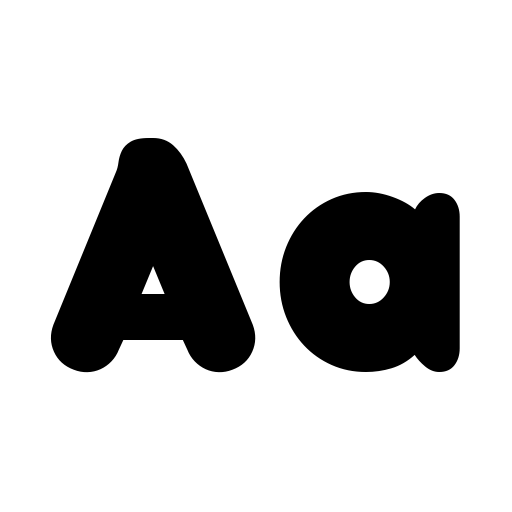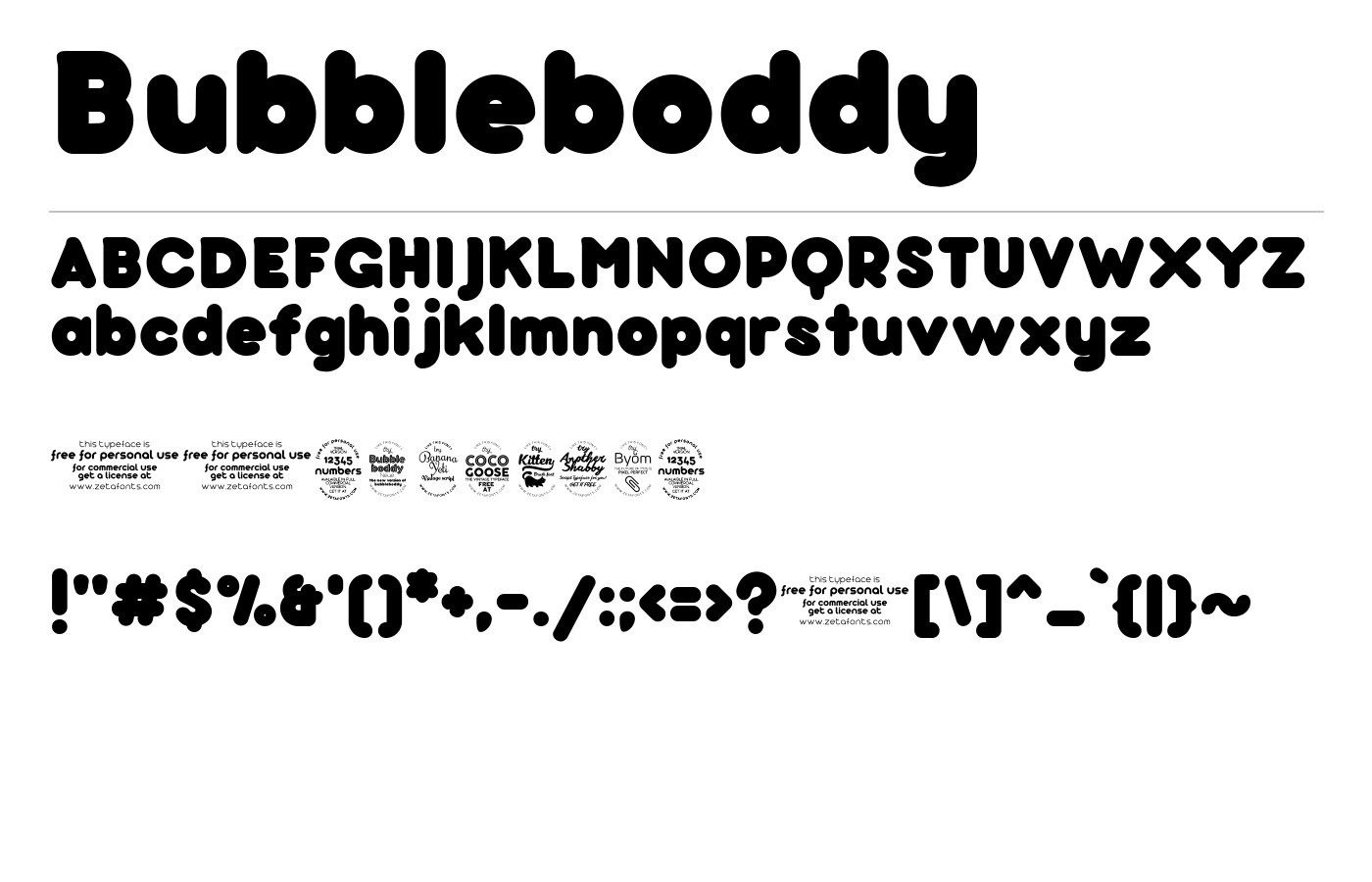
Bubbleboddy is a bold, rounded sans serif font with a playful and friendly character. Its heavy weight, smooth geometric curves, and large x-height make it highly readable and perfect for fun, casual designs such as children's books, posters, and branding that aims to convey warmth and approachability. This font works especially well in headlines and logos where a cheerful, modern vibe is desired.
Bubbleboddy Font
About Bubbleboddy Font
| Designer | Francesco Canovaro |